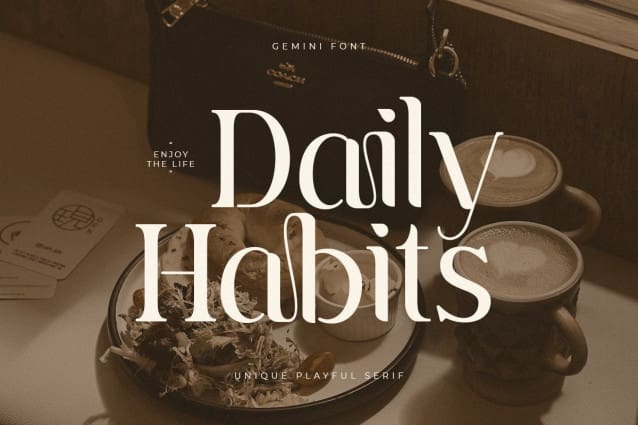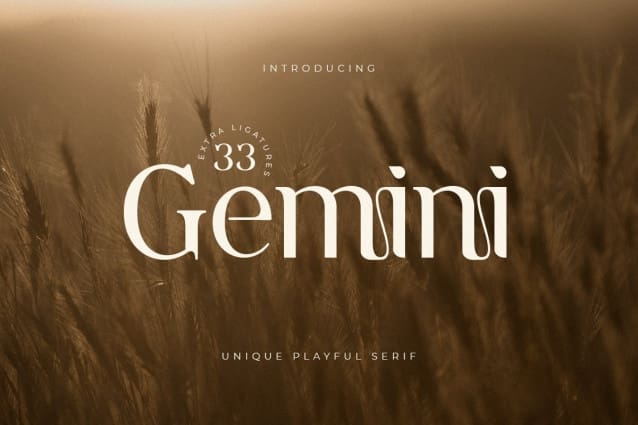
Gemini Font
Gemini Font, a serif that we created specifically to meet unique branding needs, with added ligature and unique shape variations, will be ready to add value to your brand. It’s so nice to reach out to a designer or product owner who needs solutions to make their design look more modern and fun. And especially for this font, we have prepared all ligatures and alternate characters to help you create unlimited variations for your creative needs.